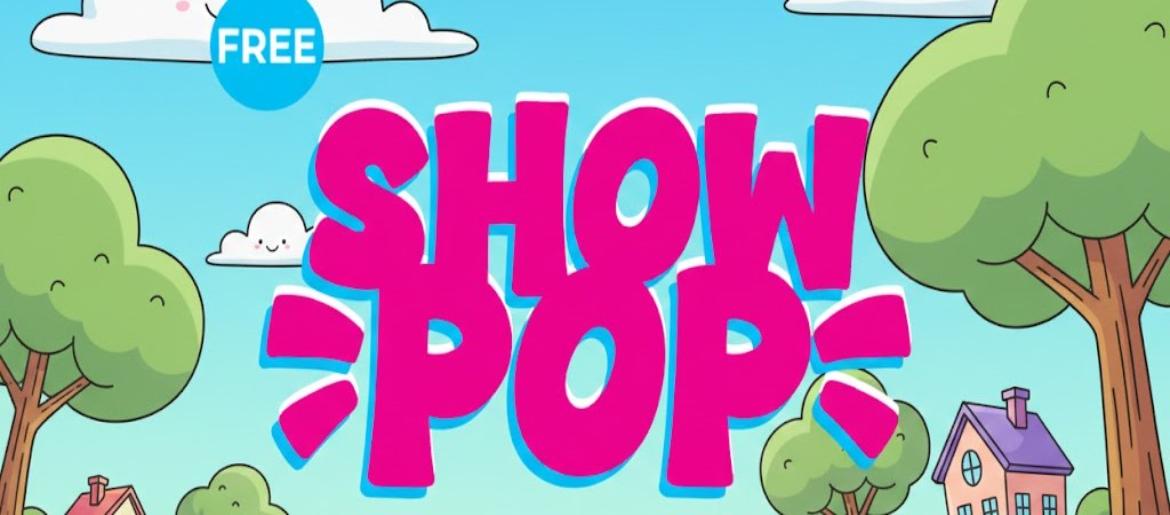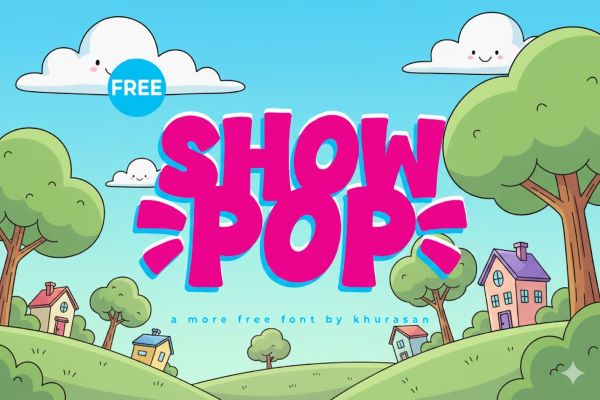
Showpop Font
Showpop Font delivers a modern and cute display style with a lively, eye-catching personality. Its rounded forms and friendly structure make it ideal for posters, logos, magazines, book covers, banners, and creative branding. Showpop adapts easily to many design projects, adding charm, clarity, and visual energy that helps layouts feel fresh and stand out.